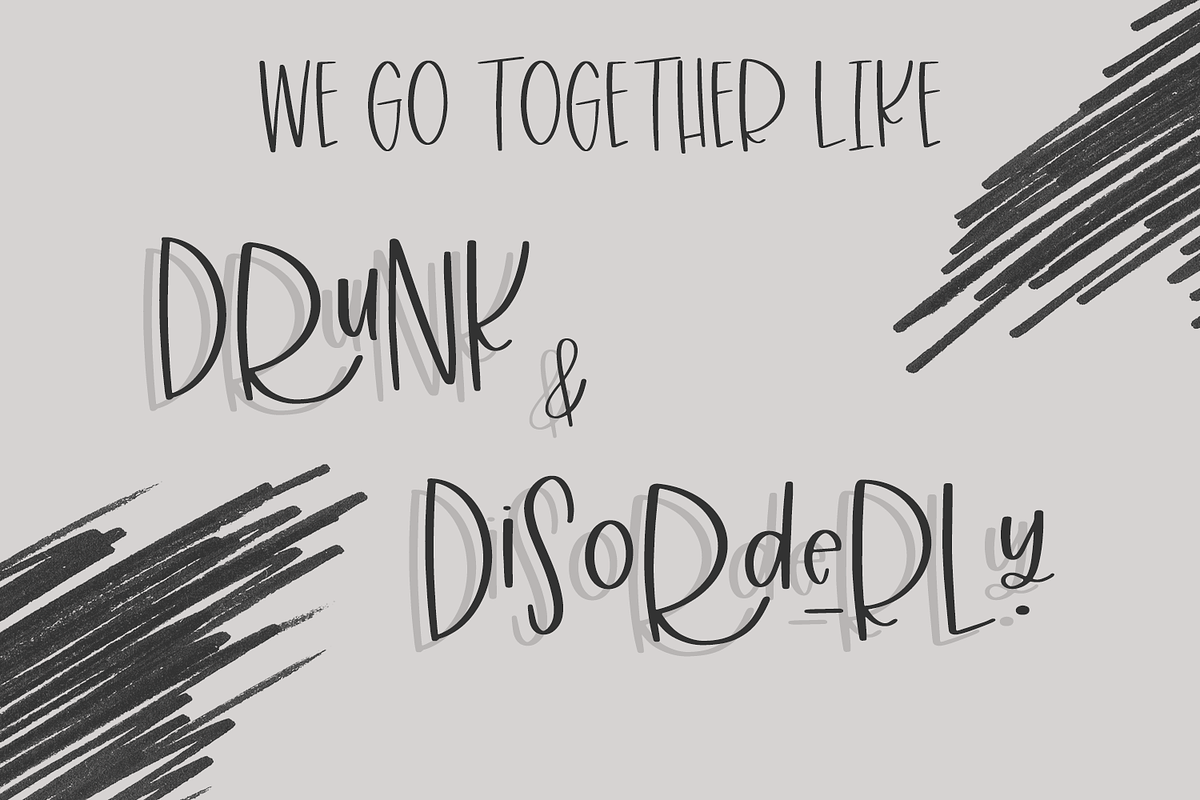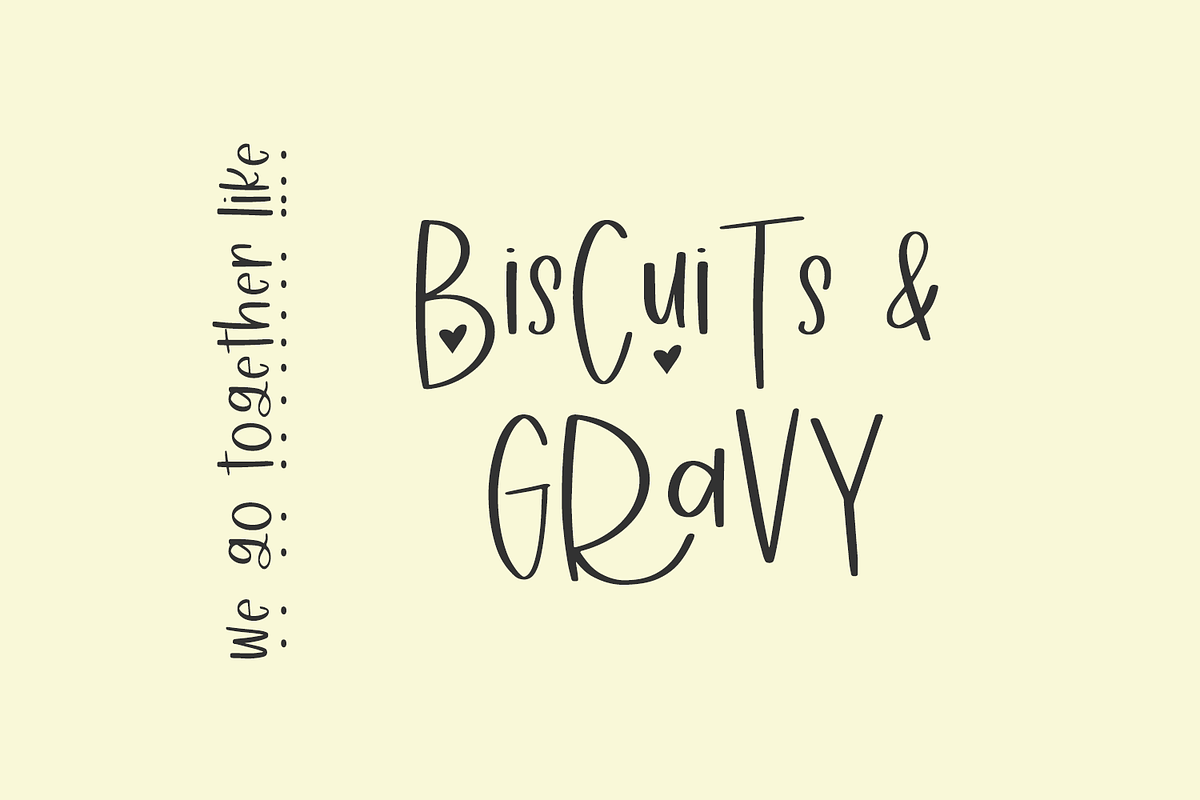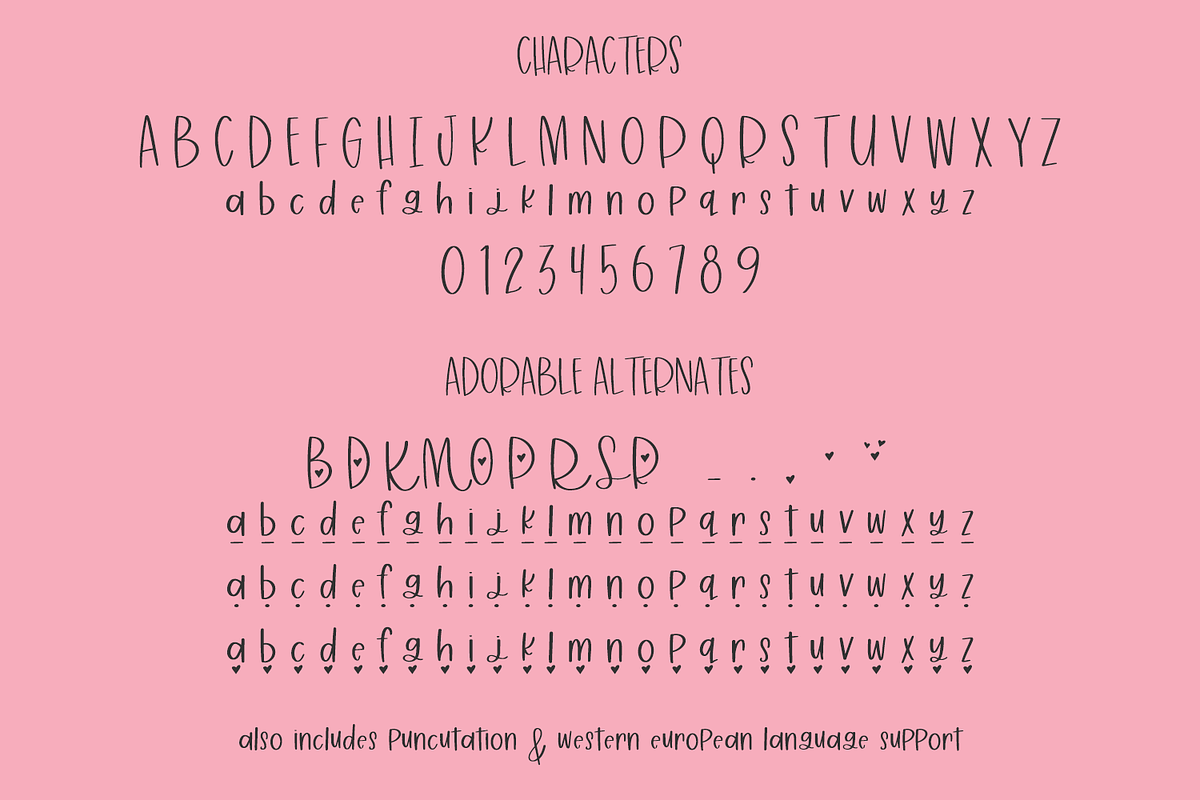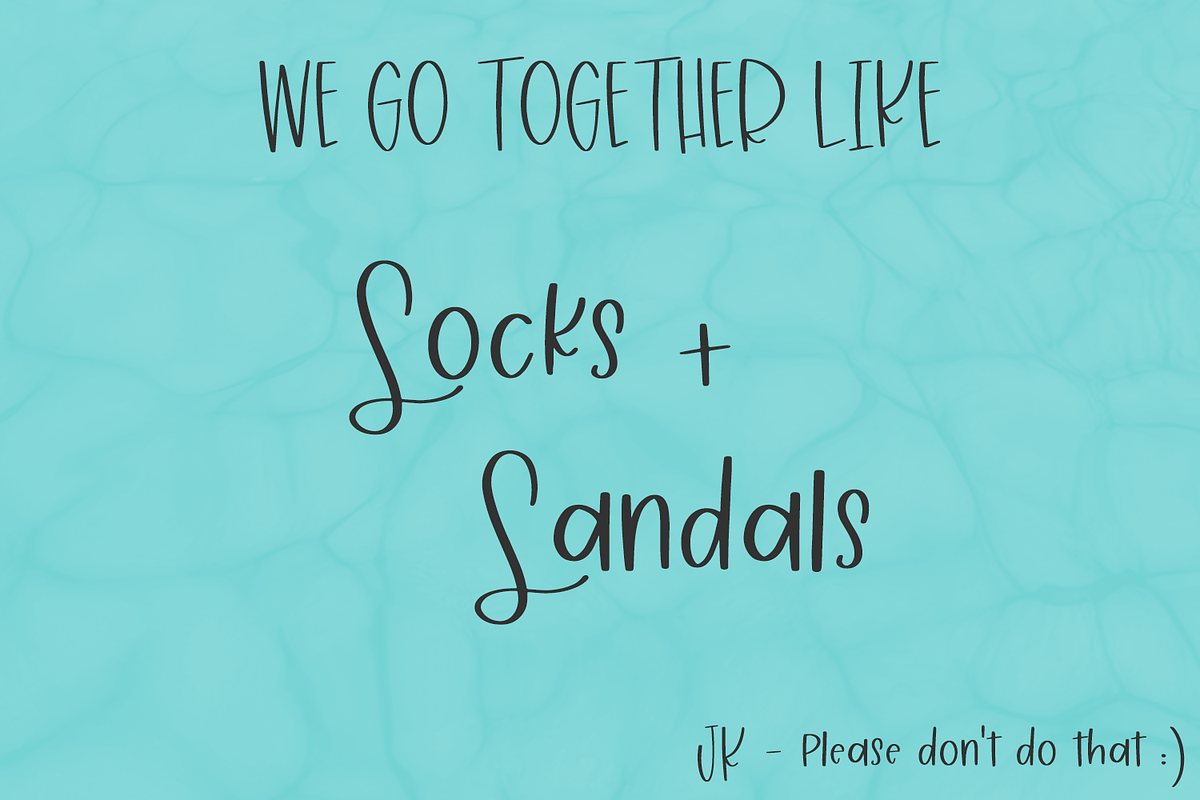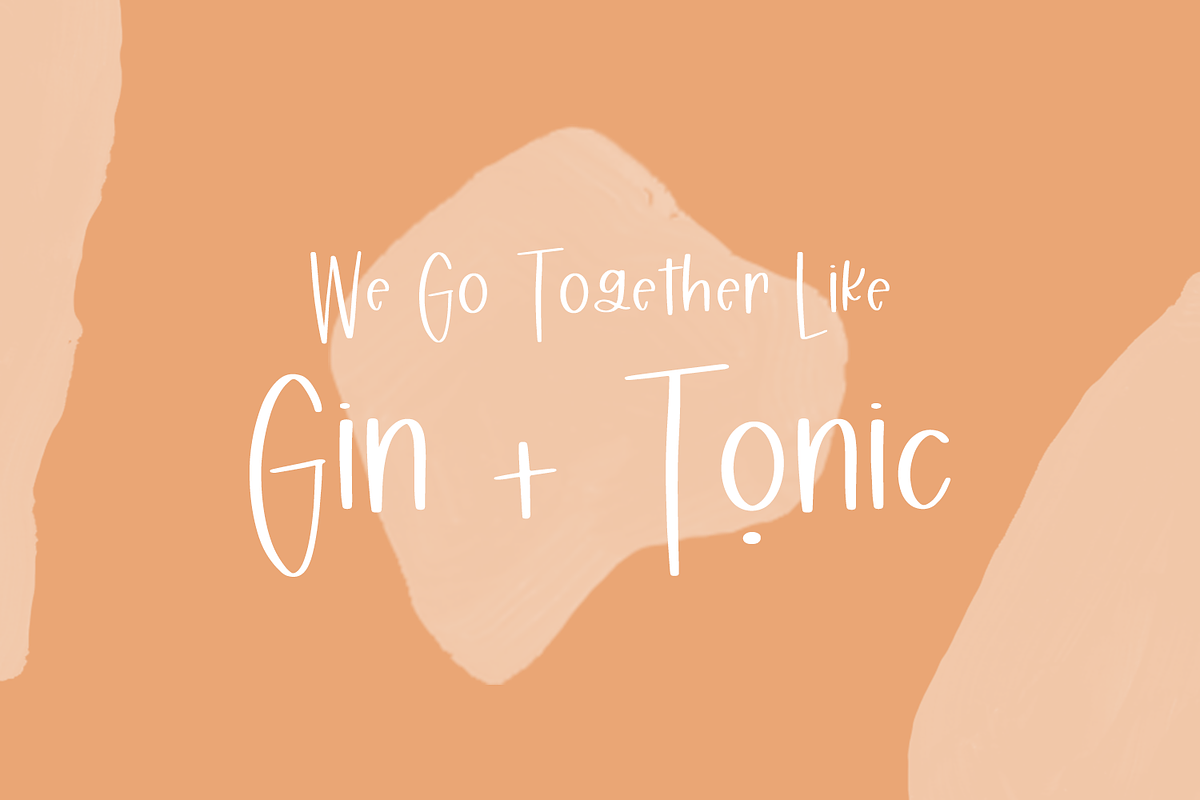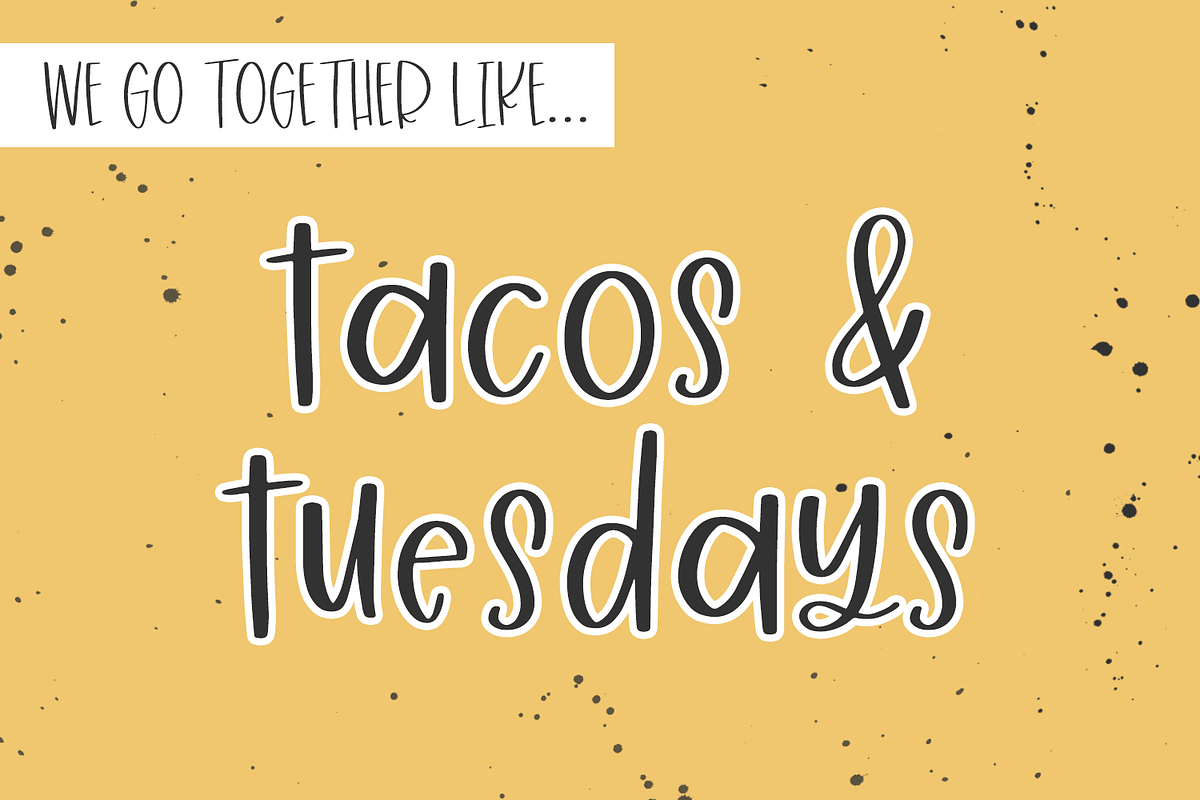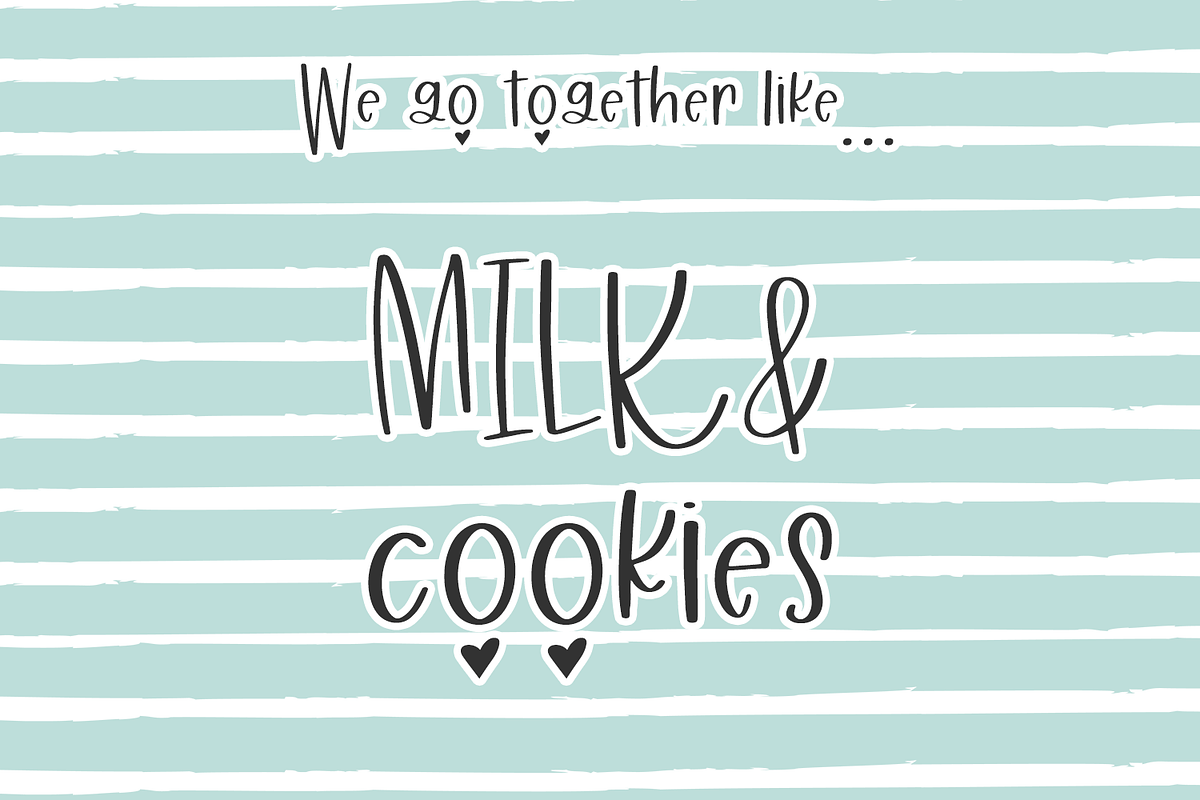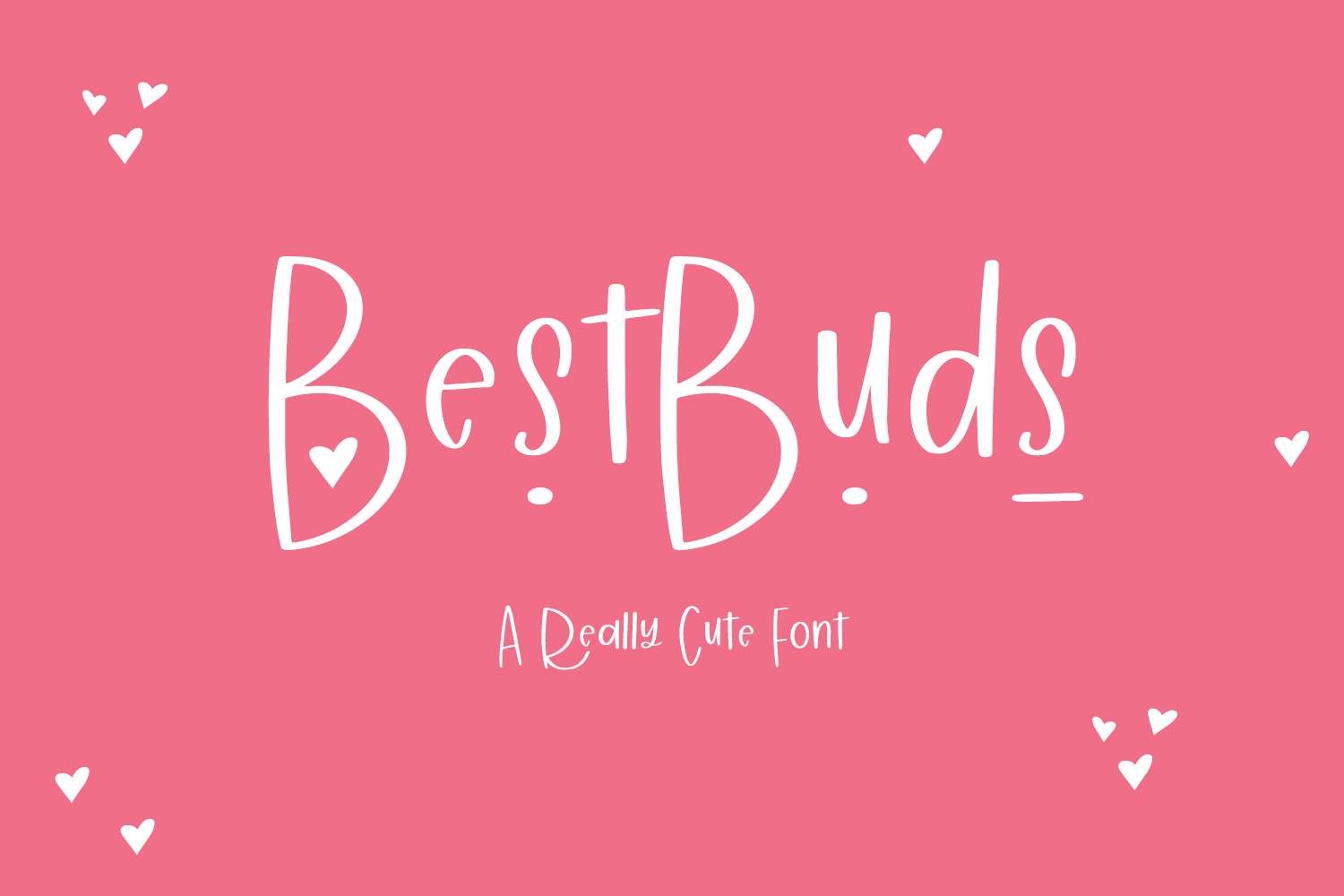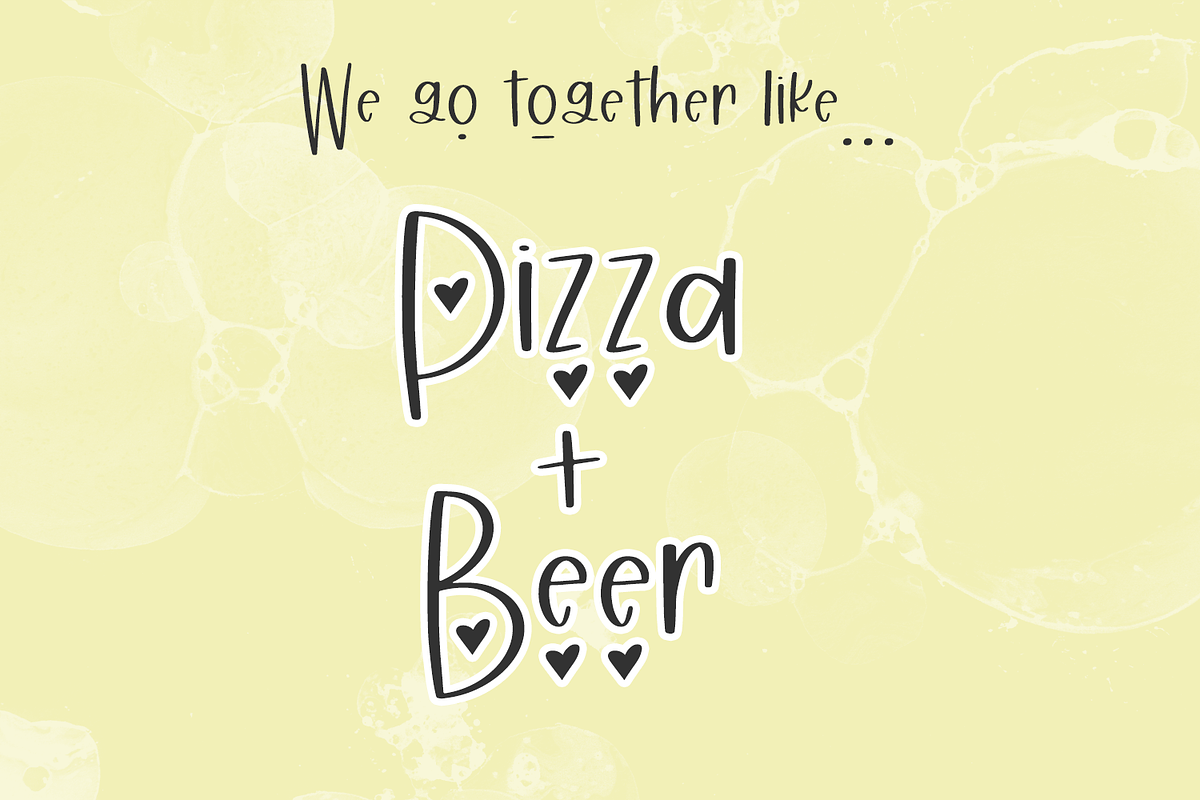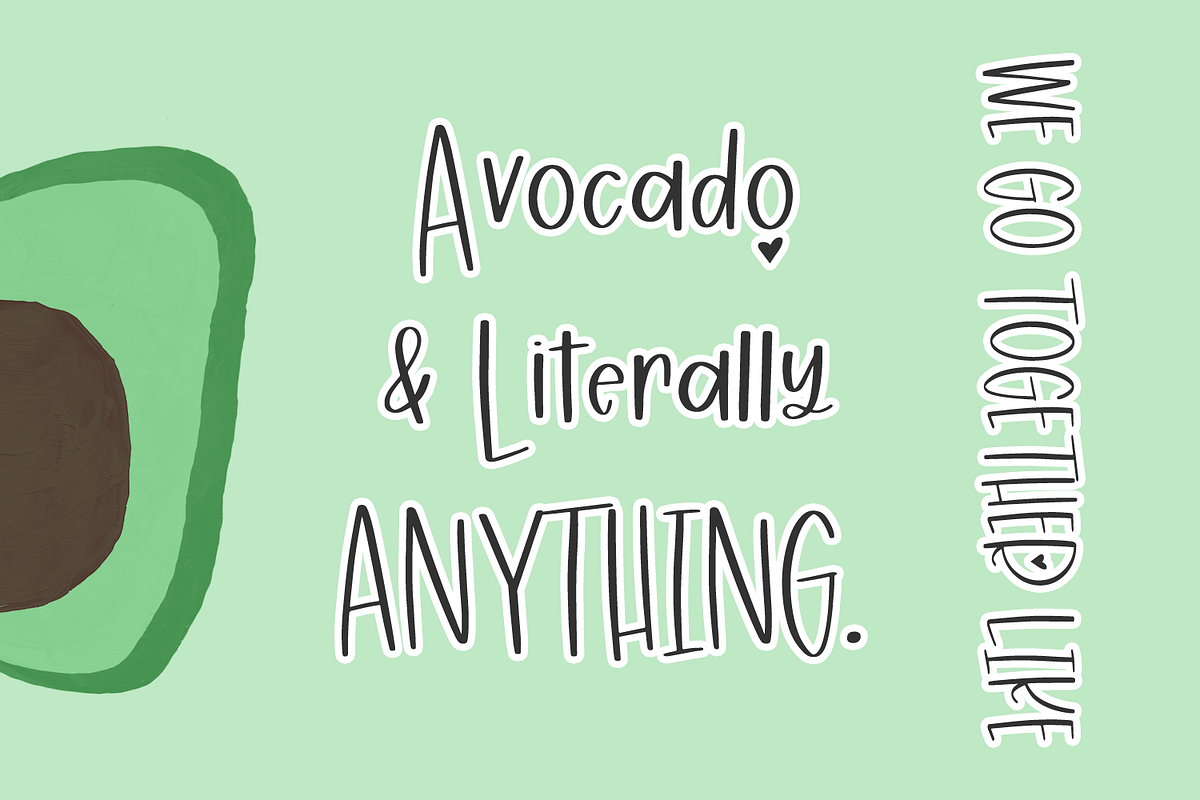
Best Buds Cute Sans Font
Introducing Best Buds Sans, a cute handlettered sans font. Best Buds looks great in all caps, mixed case, or all lowercase. This adorable font includes lowercase letters that sit above the baseline, with horizontal line, dot, or heart options. As a bonus, there are also a few alternate uppercase letters featuring heart accents or cute flourishes. All of these options go together perfectly - they’re like best buds ;)
Best Buds Sans is best for:
- quote graphics for social media
- child-centric or crafty logos + branding
- SVG or crafty designs - Best Buds has a smooth, clean-cutting edge making it perfect for vinyl cutting projects
- header elements that need handwritten touch
Best Buds Sans includes:
- full upper + lowercase characters
- numbers + punctuation
- Western European Language Support
- 9 alternate uppercase characters, and 78 alternate lowercase characters
- additional line, dot, and heart alternates as doodle accents
- lowercase alternates sit above baseline and include horizontal line, dot, or heart accents below the letter